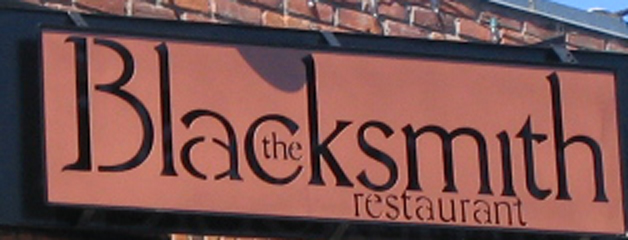
anyone know this font??
I know the font has been modified for cutting with a laser, just looking for the base font.
I don't know the font but it has design characteristics similar to a lot of fonts from Emigre Fonts. You might want to browse their website.
I checked there, nothing. Its really frustrating when you need a font that looks simple, but has some characteristics that makes it hard to find.
I lloked at poor richard and it was similar. I finnaly fount the exact font although they Tweeked the "a" just a bit. Just in case you were curious, the font name is carlton.